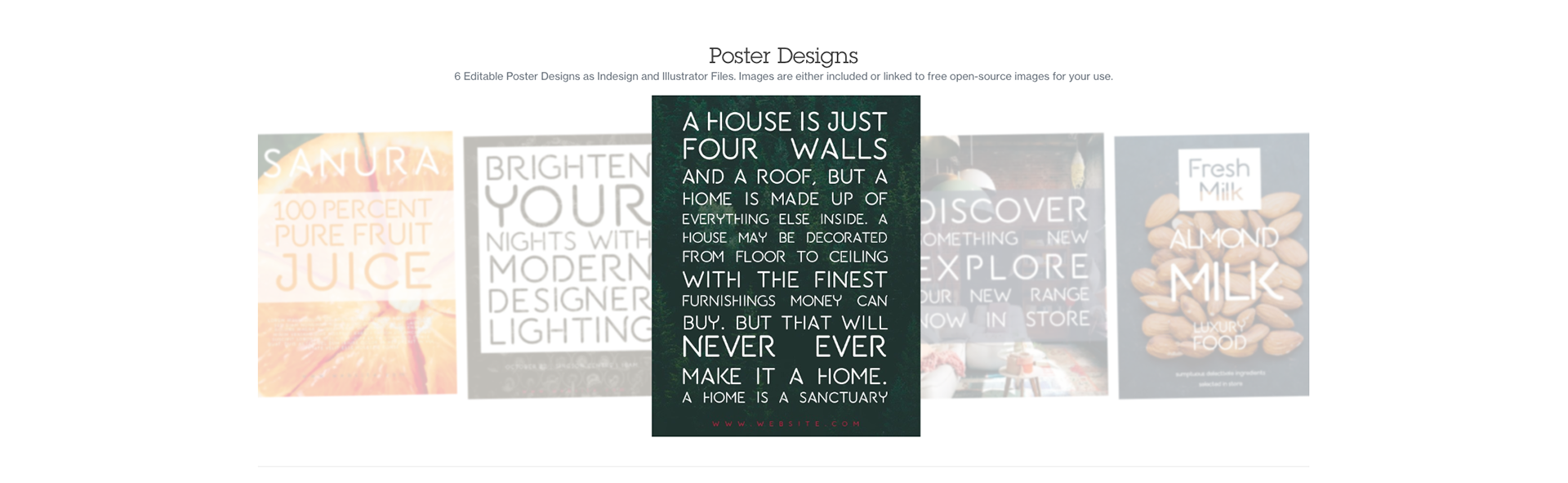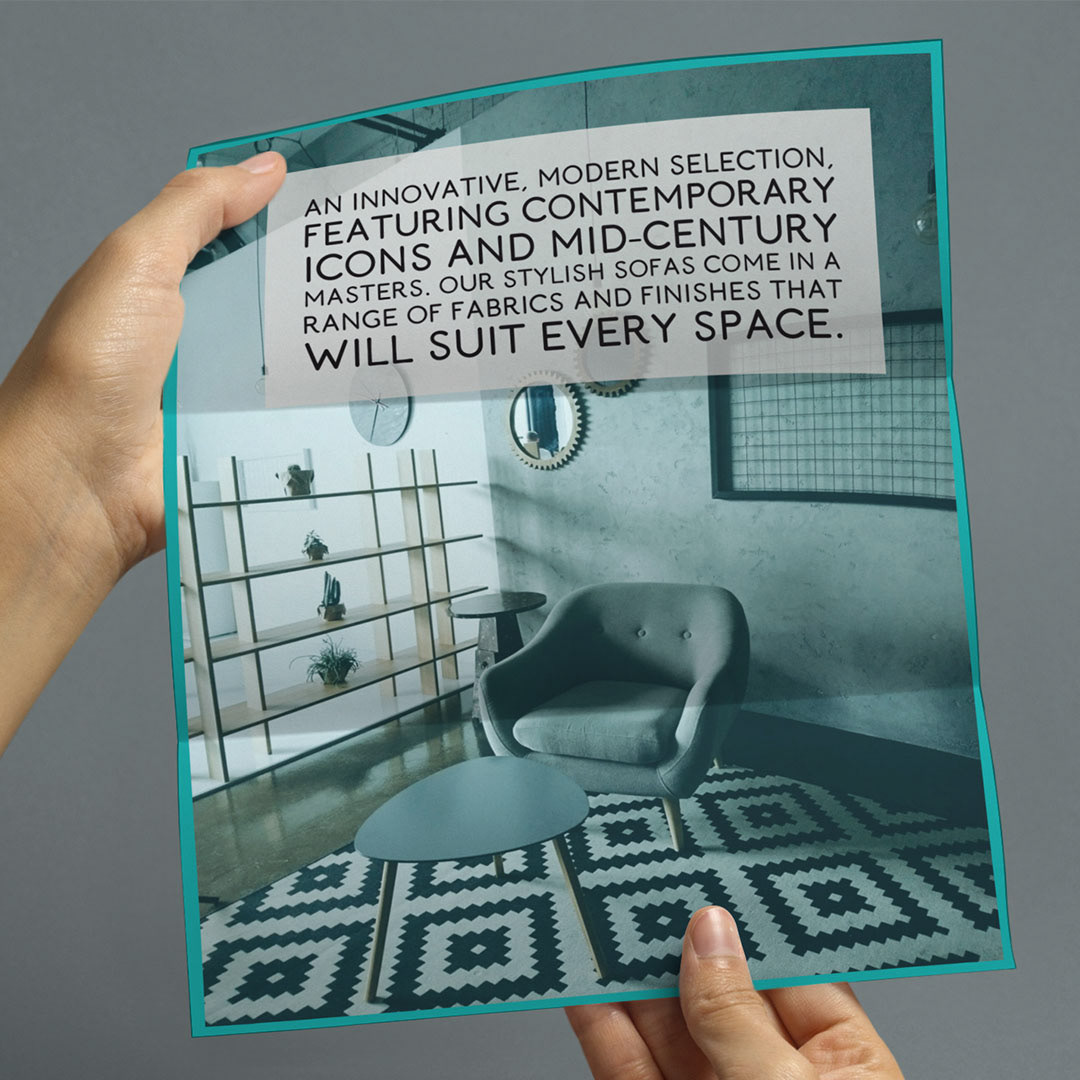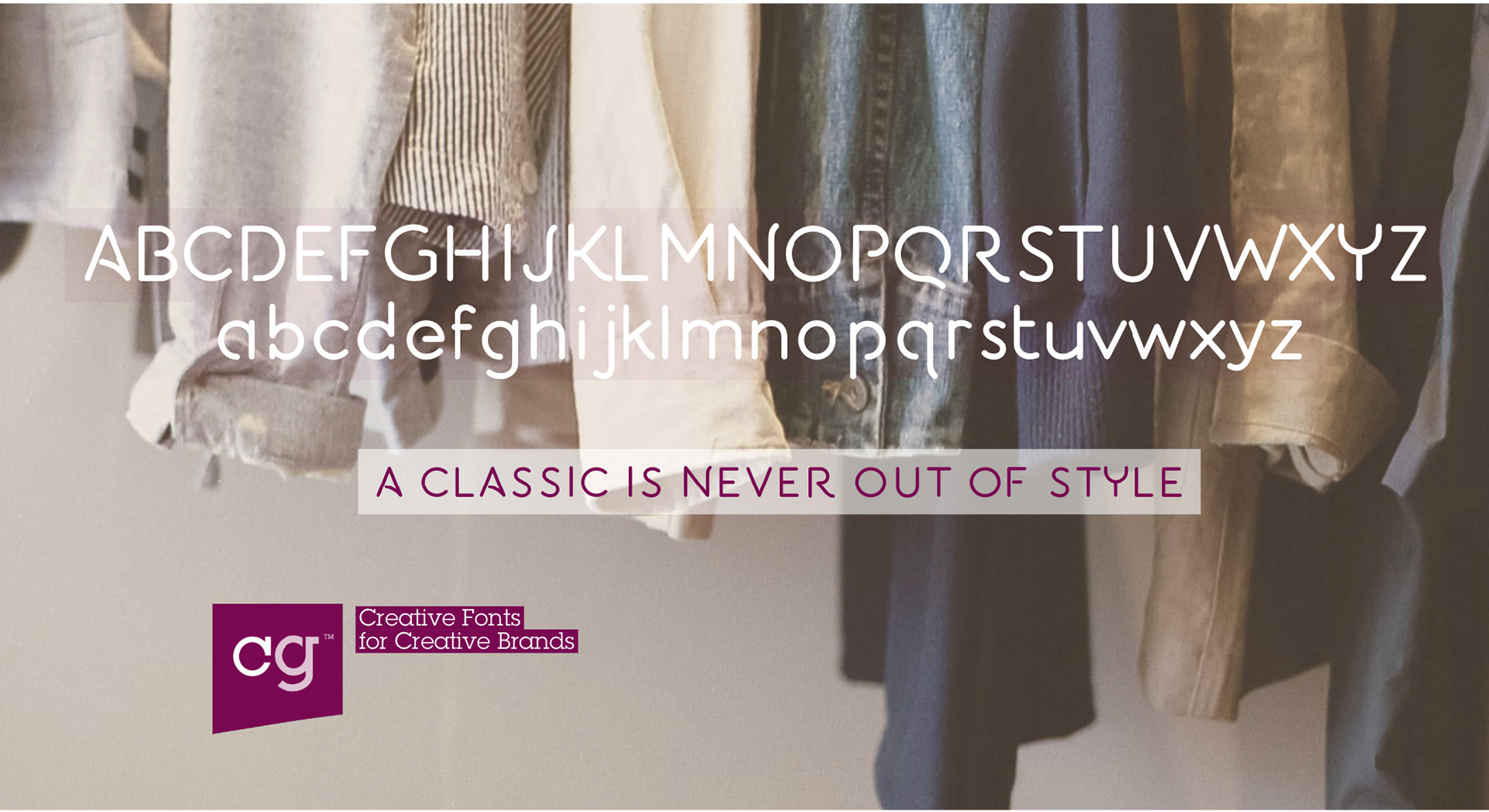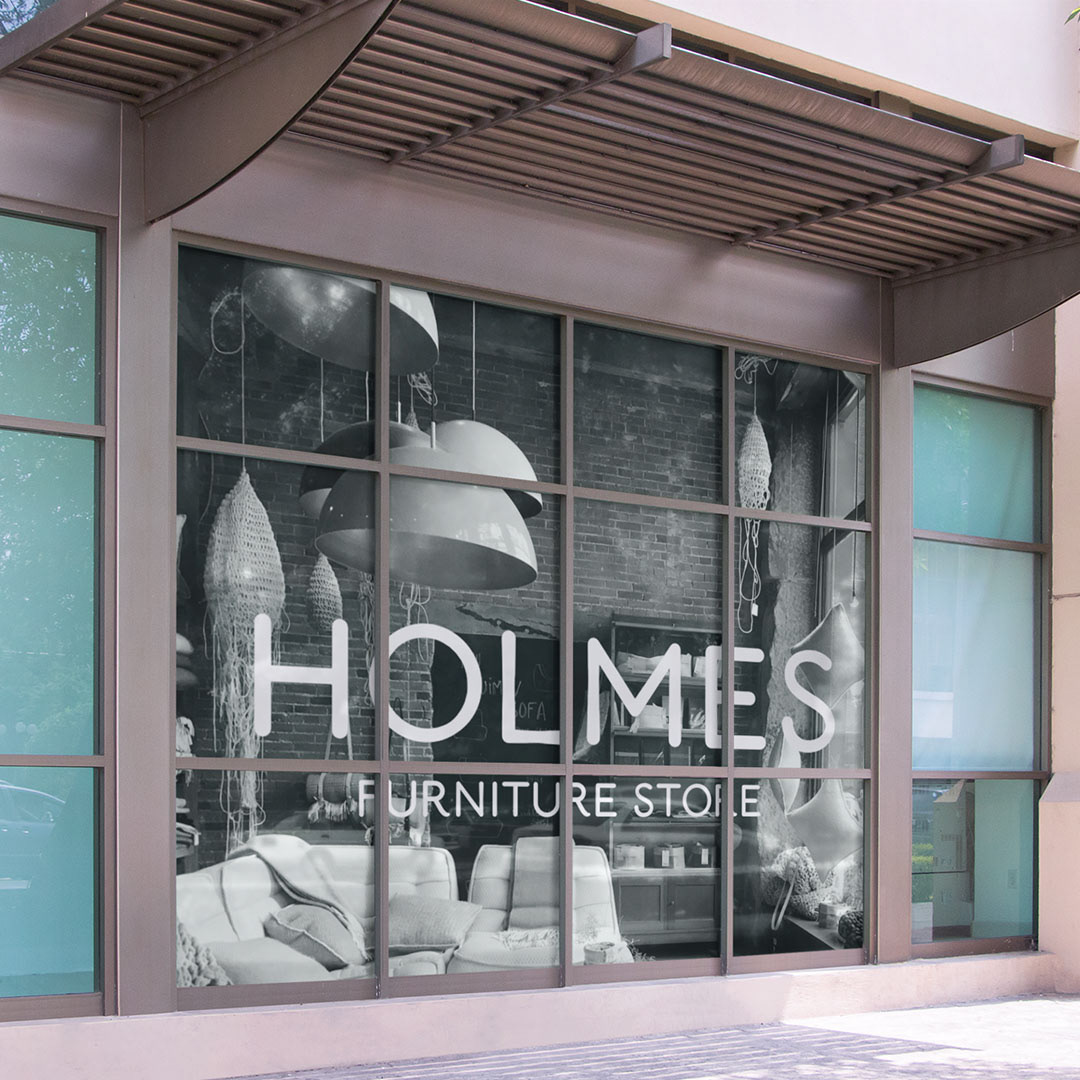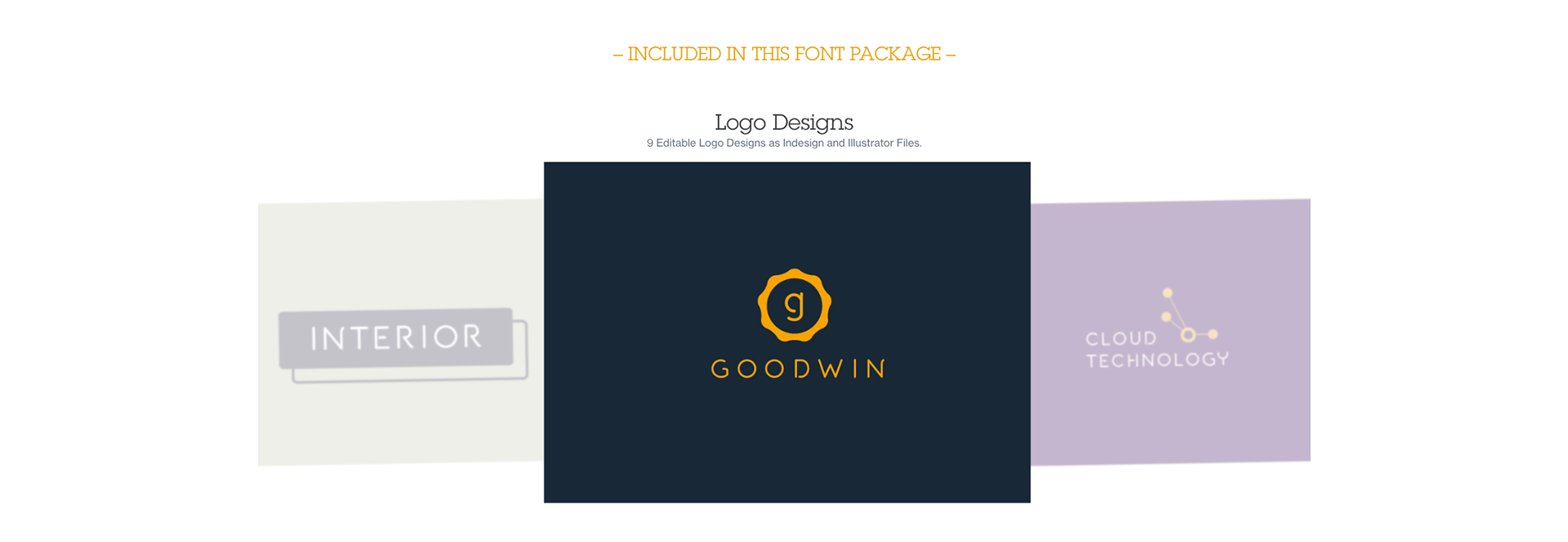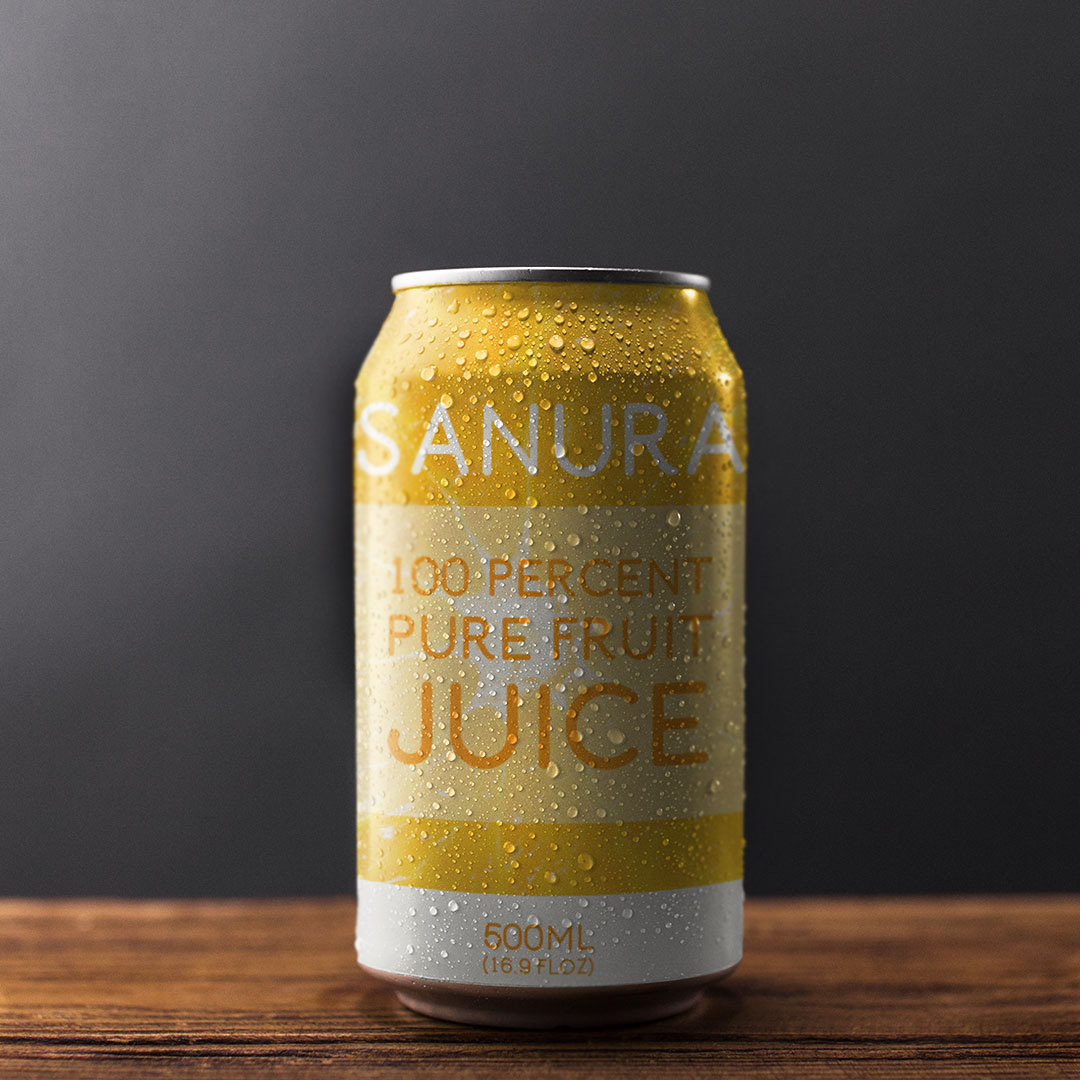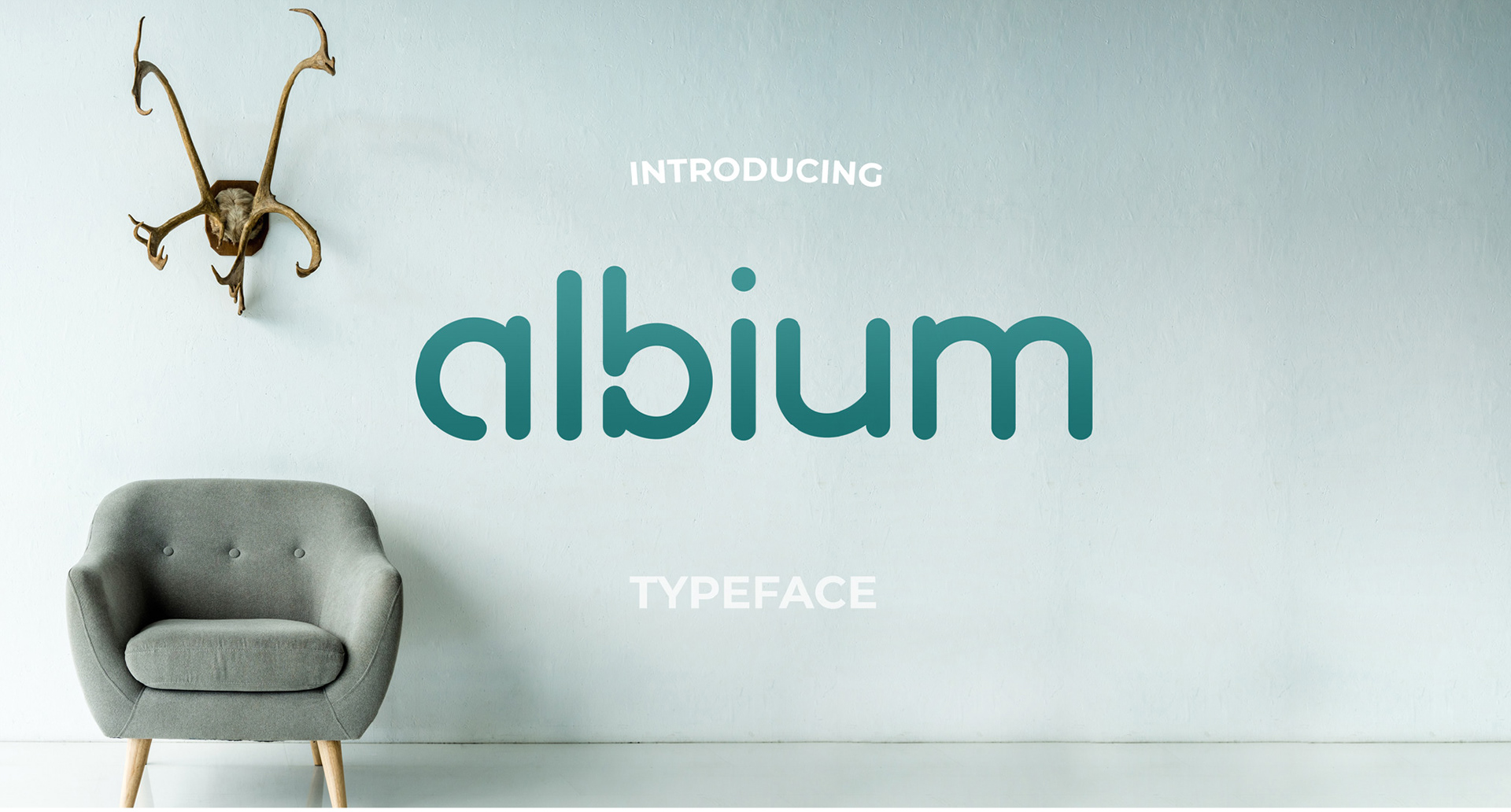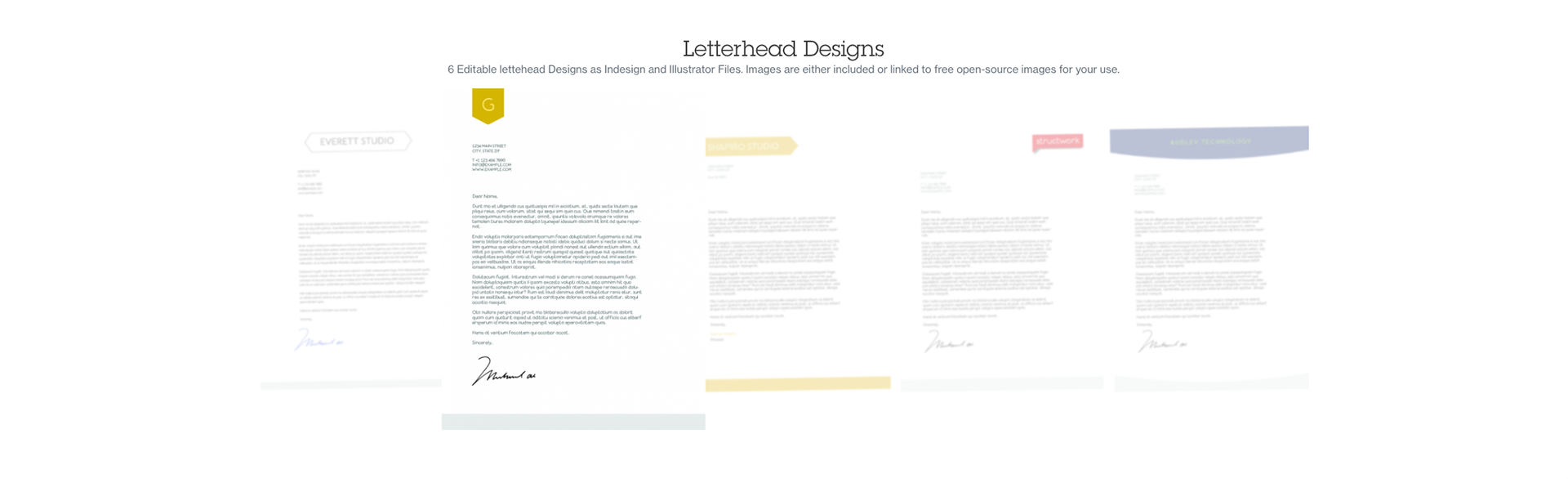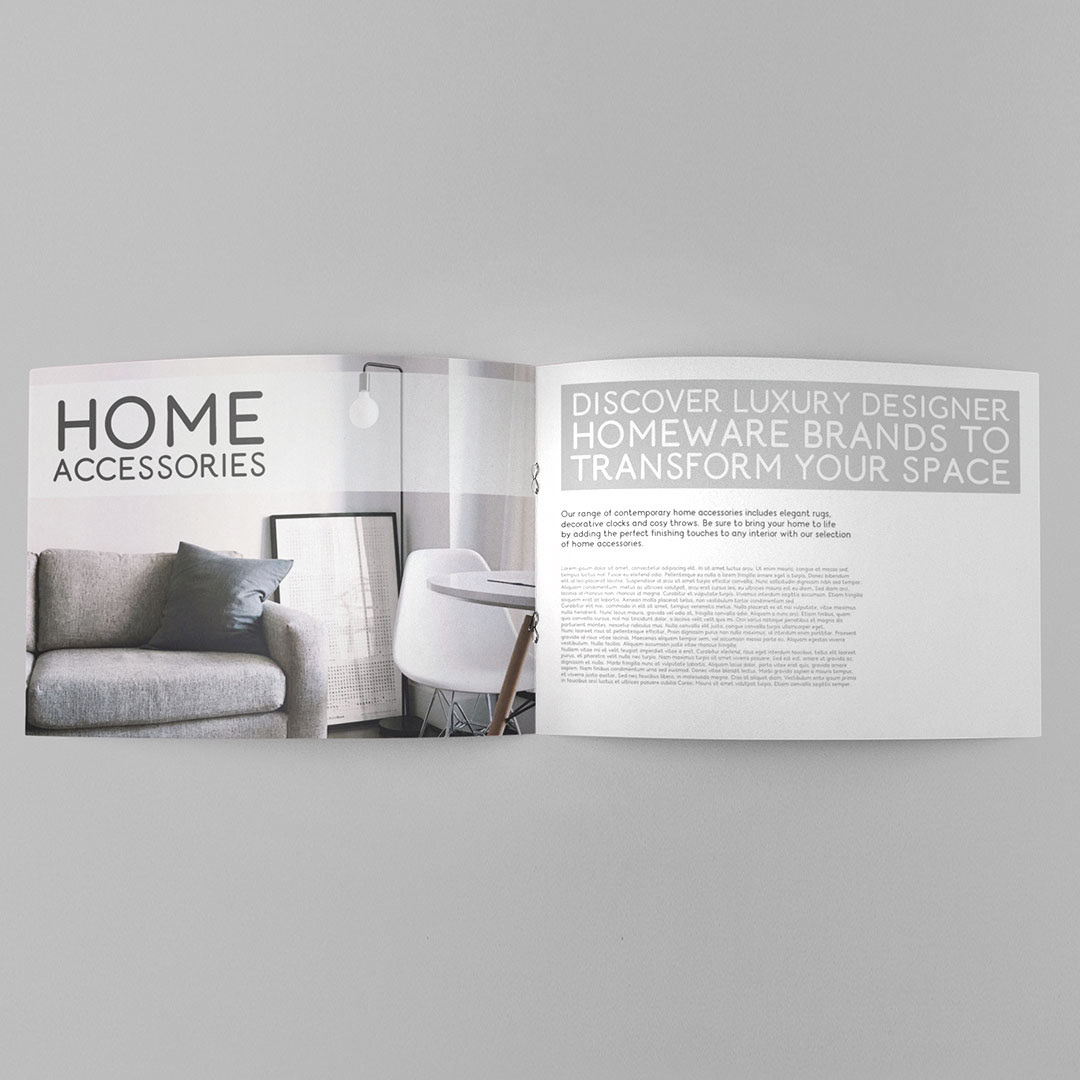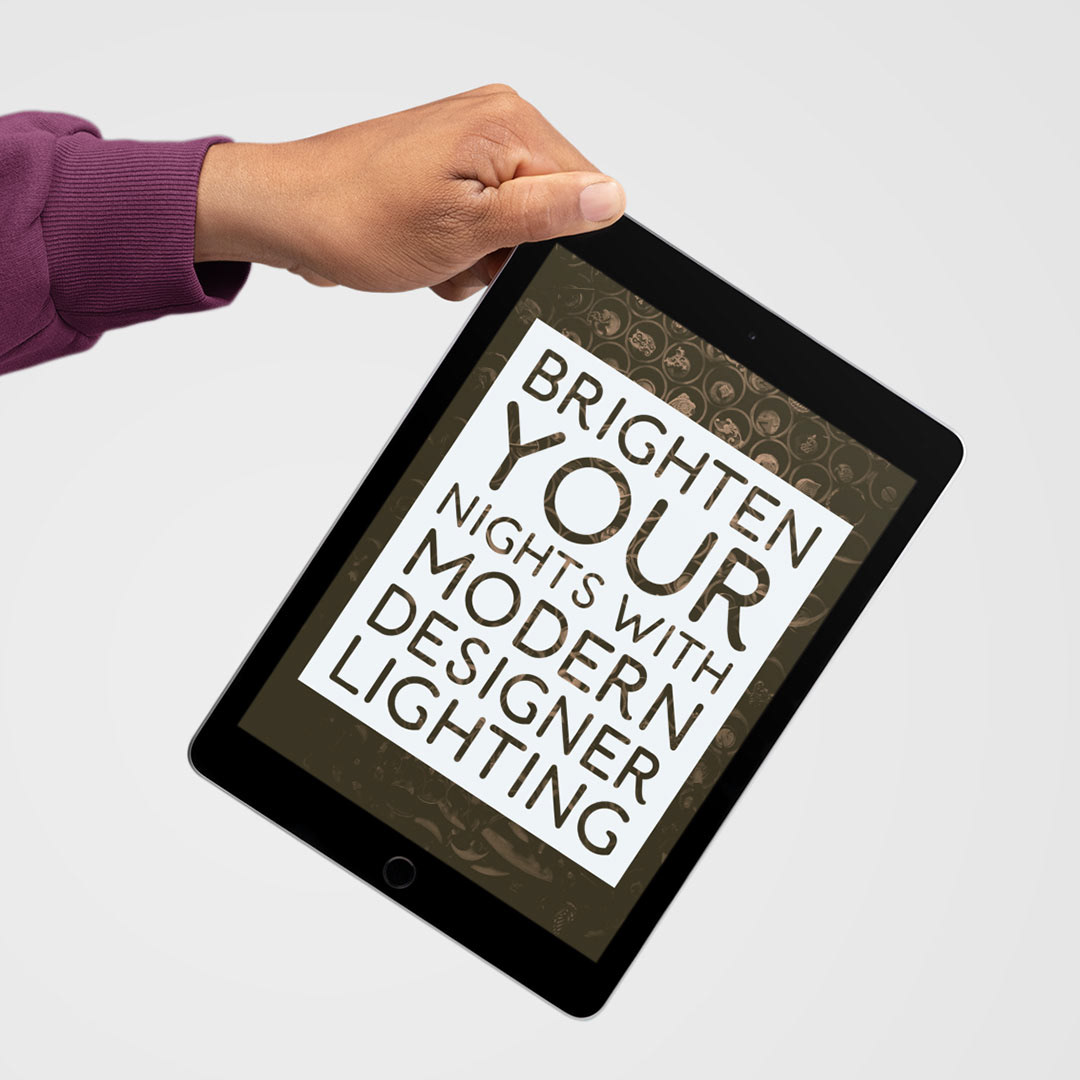
The Albium typeface was created from the beginning of custom lettering for a new client identity and developed into a full font that is unique in its style.
The mix of single stroke open shapes formed simple letters with rounded ends that work well at different sizes and weights and it’s modern style is friendly and approachable. Developed with multiple opentype features this versatile font is great for logos and headlines alike.